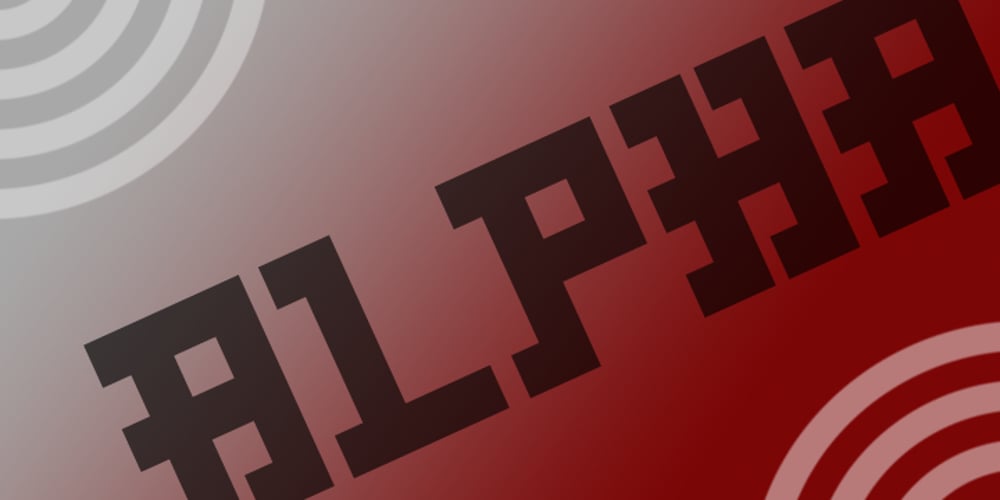
Alpha
Alpha font
Alpha Font Family was designed by Carl Thomas Redfern and published by CTR. Alpha contains 3 styles and family package options. The initial designs for this font first came from the idea of creating a dynamic and visually appealing typeface just by using squares so throughout the development stages I had restricted myself to just the use of squared paper. The hardest thing that I found was overcoming the problems regarding letter forms that have diagonal lines and therefore defer from the ongoing style of the typeface.